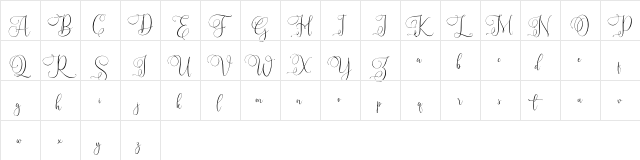
Rendezvows FREE Regular
Rendezvows FREE is a composed and adaptable typeface that performs quietly and consistently across a wide range of design contexts.